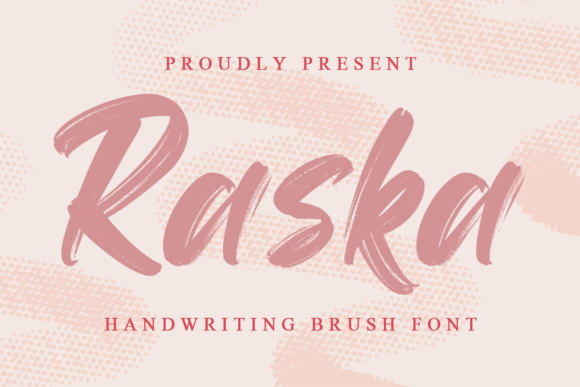
Raska: A Modern Brush Font for Creative Expression
When it comes to design, the right font can make all the difference. Raska is a fresh and modern brush font that brings a handcrafted feel to any project. Whether you're working on a logo, a social media post, or a presentation, Raska adds a touch of personality and style that sets your work apart.
Designed with care, Raska combines the fluidity of a brush stroke with the clarity of a well-structured typeface. This balance makes it ideal for both digital and print applications. Its unique characteristics allow it to stand out while remaining highly readable, making it a versatile choice for a wide range of projects.
What Makes Raska Stand Out?
Raska’s appeal lies in its natural, organic look. Unlike rigid, geometric fonts, Raska mimics the subtle variations of a real brush, giving your designs a more human and artistic touch. This quality makes it particularly effective for branding, marketing materials, and creative projects where visual interest is key.
The font features a consistent weight and spacing, ensuring that it works well in both short headlines and longer paragraphs. Its curves and lines flow smoothly, creating a sense of movement and energy that can elevate the overall aesthetic of your design.
One of Raska’s most notable strengths is its adaptability. It can be used in a variety of contexts, from casual blog posts to professional presentations. Its clean structure allows it to pair well with other typefaces, making it a flexible addition to any designer’s toolkit.
Practical Applications of Raska
For professionals in the design industry, Raska offers a powerful way to express creativity without sacrificing readability. Graphic designers, marketers, and content creators can use it to add a unique flair to their work. For example, a designer might use Raska for a client’s logo to give it a more personal and artistic feel.
Entrepreneurs and small business owners can also benefit from using Raska. Whether they’re creating a website, social media content, or printed materials, this font helps convey a sense of authenticity and craftsmanship. It’s especially useful for businesses in the arts, fashion, or lifestyle sectors where visual appeal plays a major role.
In educational settings, Raska can be a valuable tool for teachers and students. It can be used in presentations, posters, or classroom materials to make information more engaging. Its readability ensures that it remains accessible even when used in larger text sizes.
Why Raska Works in Different Environments
For digital projects, Raska maintains its clarity on screens of all sizes. This makes it an excellent choice for websites, mobile apps, and online content. Its smooth curves and balanced proportions ensure that it looks sharp and professional, no matter where it’s displayed.
On the other hand, Raska also performs well in print. Its clean lines and consistent spacing make it suitable for brochures, flyers, and other printed materials. The font’s organic feel adds a tactile quality that can enhance the overall experience of physical designs.
Real-World Use Cases
Consider a freelance graphic designer who wants to create a series of social media graphics for a client. By incorporating Raska into the design, they can add a unique visual identity that aligns with the client’s brand. The font’s brush-like strokes give the content a more personal and artistic feel, which can help increase engagement and viewer connection.
Another example is a blogger looking to refresh their website’s design. Using Raska for headings and subheadings can introduce a new level of visual interest without overwhelming the reader. The font’s readability ensures that the content remains easy to follow, while its stylistic elements add a fresh and modern vibe.
Even in commercial environments, Raska has practical value. A local café might use it for signage or menu design to create a warm and inviting atmosphere. The font’s organic feel complements the cozy, handmade aesthetic often associated with such spaces.
Choosing and Implementing Raska
Before using Raska, it’s important to consider how it will fit into your existing design system. If you’re working with a specific color palette or typography scheme, test Raska alongside other fonts to see how it interacts. This ensures that it enhances rather than clashes with your overall visual identity.
Whether you're a seasoned designer or just starting out, Raska offers a fresh and modern approach to typography. Its combination of style, readability, and versatility makes it a valuable addition to any creative project. With Raska, you can bring a touch of artistry to your designs and make your work stand out in a crowded digital landscape.